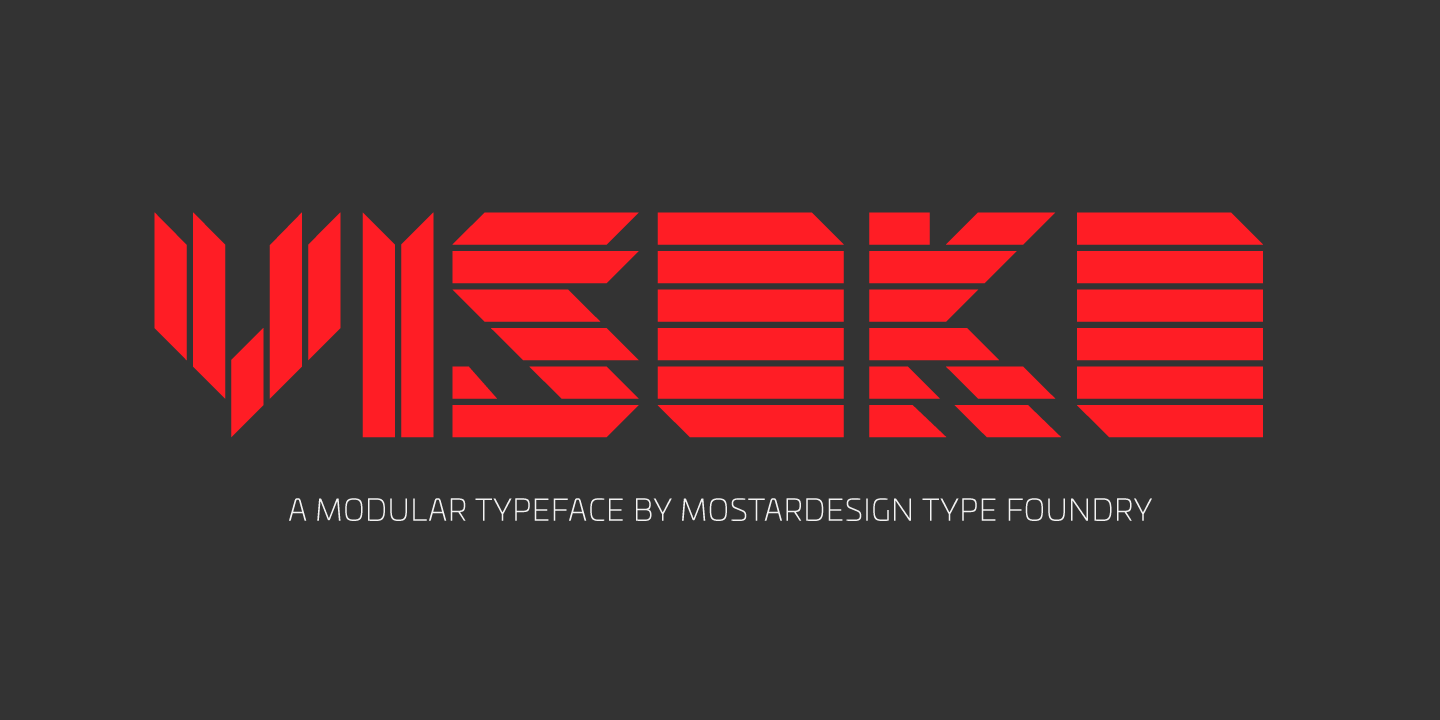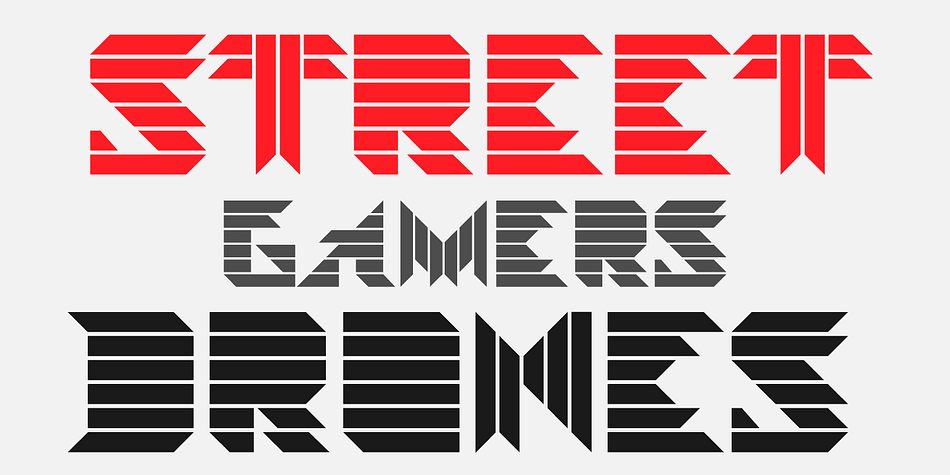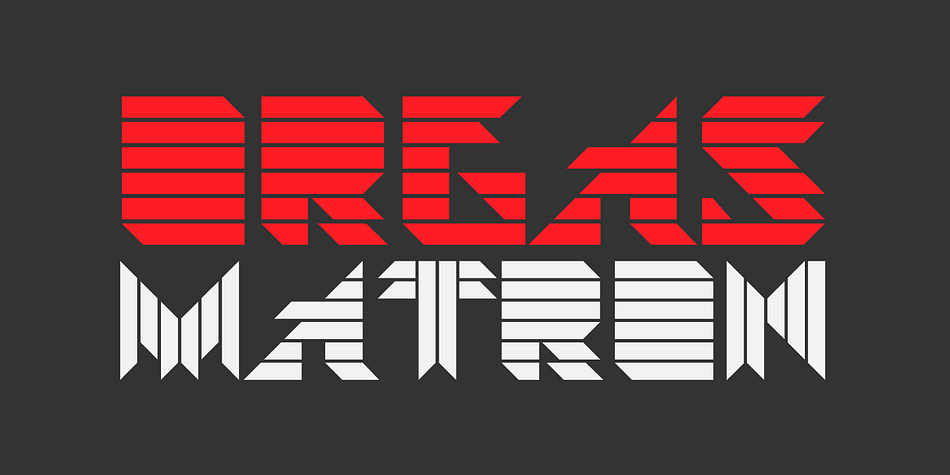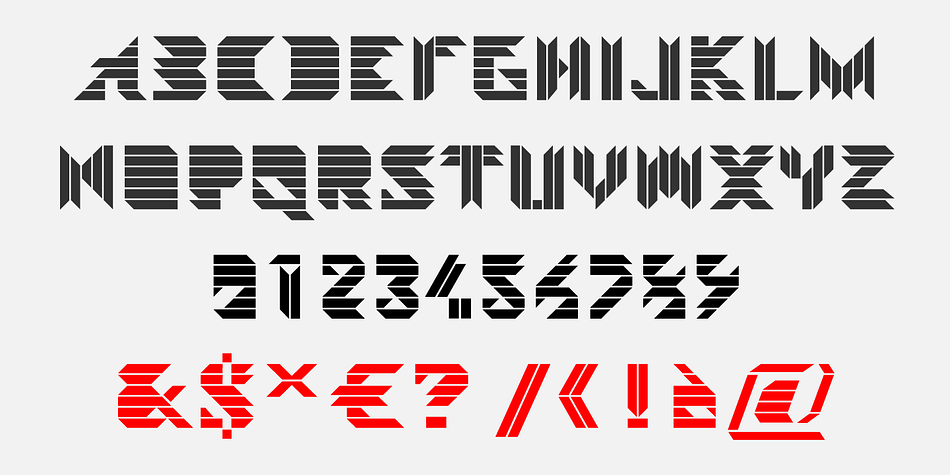
Visoko is a novelty and art deco font family. This typeface has four styles and was published by Mostardesign.
Visoko is a playful, geometric typeface inspired by post-modern fonts designed by Mecanorma from the 80s.
This typeface has been designed on a grid of 7×6 squares but the goal was to create variations from the grid to give the character a destructured aspect.
VISOKO is available in two styles : regular and italic and only in uppercase.
It has aspects of Laser shapes and proportions but has modern additions that make it ideal for industrial brands and modern titles.